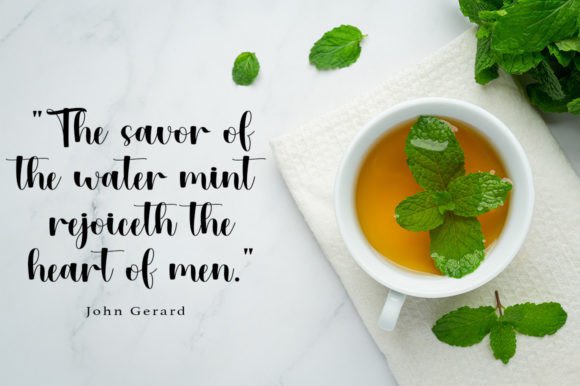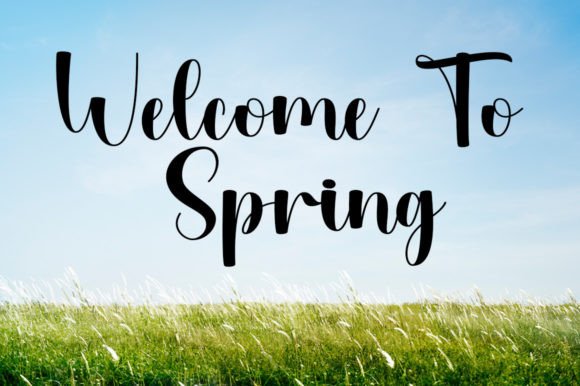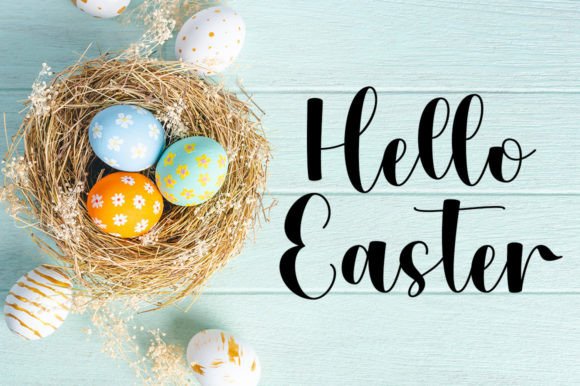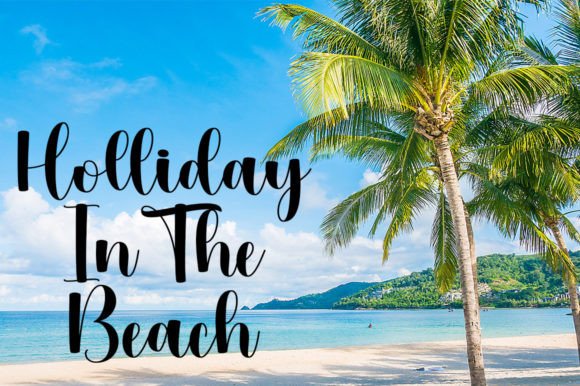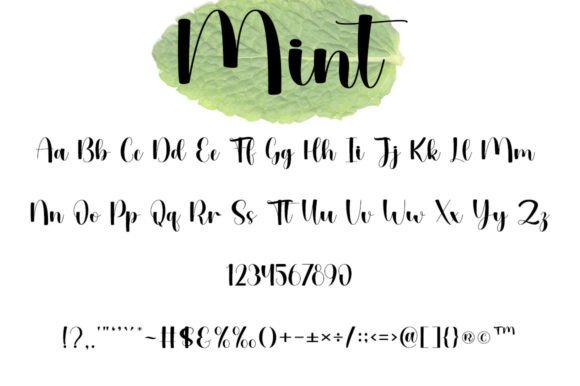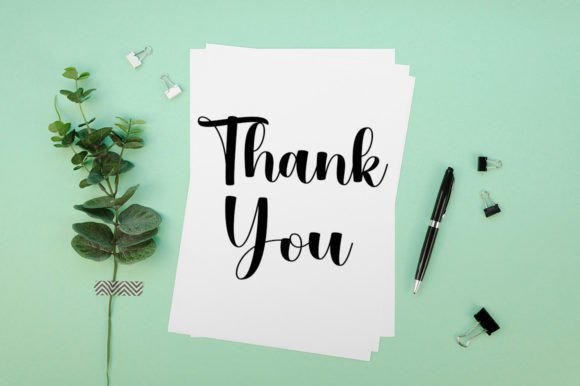
Introduction to Mint Font
Mint is a fresh and contemporary script font that embodies a sense of playfulness and whimsy.
With its curvy and rounded letters, this font is perfect for adding a personal touch to branding, packaging, and social media graphics Its unique and youthful style adds a pop of color and energy to any project, making it stand out from the crowd.